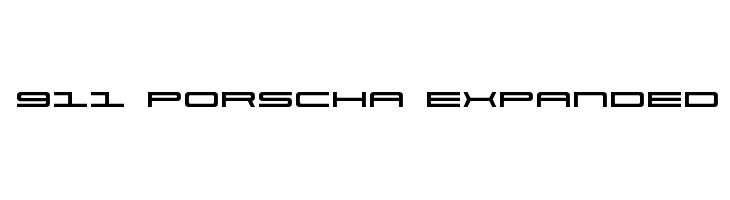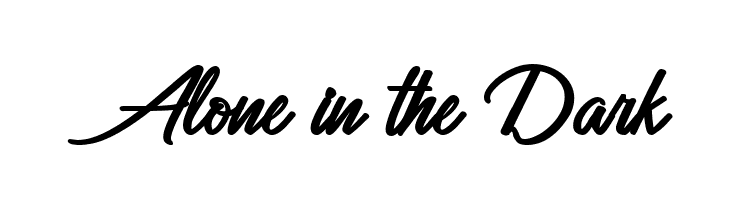
( Fonts by Arkandis Digital Foundry )
A bold, italic serif font with a classic and elegant style.
( Fonts by www.blambot.com )
A bold, jagged, and dynamic font with sharp, angular edges.
A bold, distressed font with a grunge, textured style.
( Lettersiro Studio - Muhammad Sirojuddin - creativemarket.com/Lettersiro )
A bold, playful font with whimsical curves and clear readability.
( Fonts by Kreative Korporation - www.kreativekorp.com )
( Fonts by Vable studio )
A playful, balloon-like font with a bubbly, outlined design.
( Fonts by www.fontalicious.com )
Hand-drawn dingbat font with garage sale item illustrations.
( Fonts by weknow - Wino S Kadir )
A playful, bold font with rounded, thick strokes and a friendly appearance.
A bold, outlined font with a dynamic, comic-inspired style.
( Fonts by Manfred Klein - manfred-klein.ina-mar.com )
Cartoon character illustrations replace standard letterforms for a whimsical effect.
A bold, high-contrast Hebrew font with a modern and decorative style.
A modern, geometric font with a futuristic and digital aesthetic.
( Fonts by bringtypestudio.co )
A bold, hand-drawn font with dynamic, uneven strokes and a playful style.
( Fonts by Nick Curtis - www.nicksfonts.com )
A bold, playful font with a vintage flair and unique serifs.
( Fonts by Press Gang Studios )
A bold, italicized font with dynamic, brush-like strokes.
( Fonts by www.fenotype.com )
A bold, rounded font with a modern and playful geometric style.
( Fonts by Khrys Bosland )
A playful, train track-themed decorative font with intricate detailing.
A sleek, modern, and slightly italicized font with a condensed and uniform appearance.
A bold, slab serif font with strong, block-like characters.
( Fonts by GLUK fonts )
A decorative serif font with a double-line, shadowed design.
A decorative font featuring detailed illustrations of rural life elements.